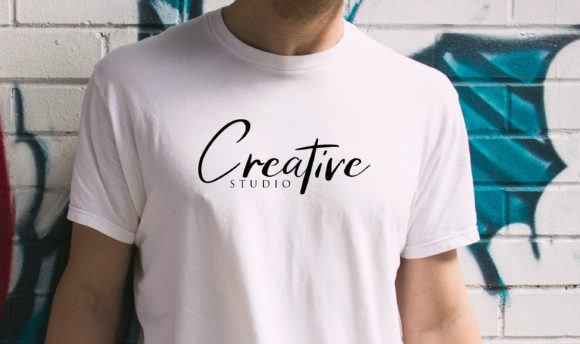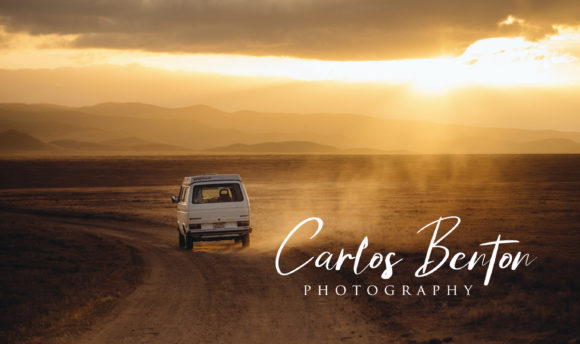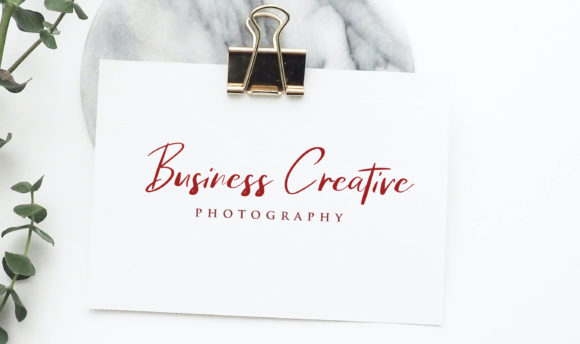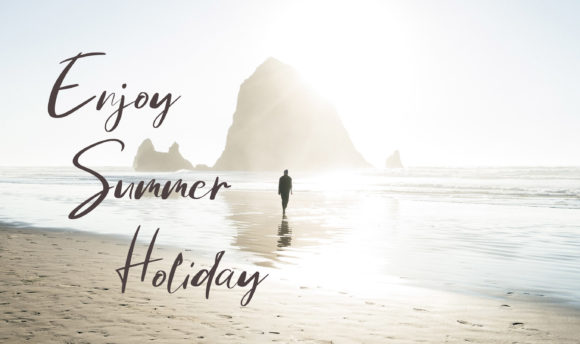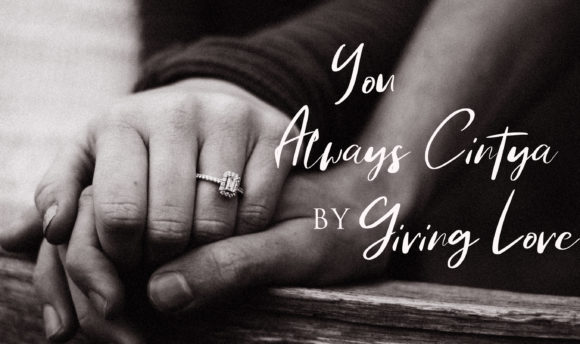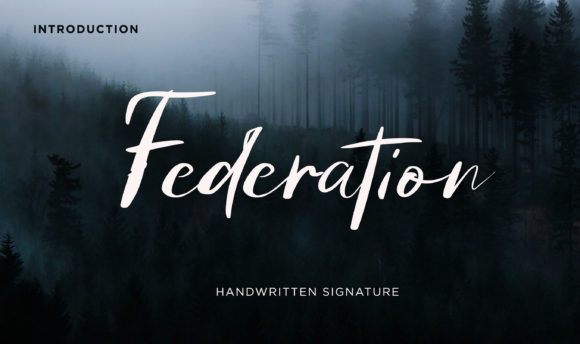
Federation Font: The Ultimate Choice for Designers and Crafters
In the world of typography, a font can make all the difference in the aesthetic and tone of a design. For designers and crafters looking for a relaxed yet stylish handwritten font, Federation Font is an excellent choice. This versatile font can be used for a wide range of purposes, from logos and wedding invitations to headings, t-shirts, and more.
What is Federation Font?
Federation Font is a beautifully crafted handwritten font that exudes a sense of relaxation and style. Its smooth, flowing lines and elegant curves make it perfect for designs that require a touch of sophistication and whimsy. Whether you’re a designer looking for a font to use in a client’s project or a crafter seeking a unique font for your handmade goods, Federation Font is an excellent option.
Uses of Federation Font
One of the best things about Federation Font is its versatility. It can be used for a wide range of purposes, including:
- Logos: Create a unique and memorable logo for your business or brand with Federation Font.
- Wedding Invitations: Add a touch of elegance and whimsy to your wedding invitations with this beautiful handwritten font.
- Headings: Use Federation Font to create eye-catching headings for your blog posts, articles, or website.
- T-shirts: Design custom t-shirts with Federation Font for a unique and stylish look.
- Letterhead: Create professional-looking letterhead with Federation Font for your business or personal correspondence.
- Signage: Use Federation Font for signage, such as store signs, directional signs, or informational signs.
- Labels: Design custom labels for your products or packages with Federation Font.
- News: Use Federation Font for newspaper or magazine headlines, or for creating engaging social media graphics.
- Posters: Create eye-catching posters with Federation Font for advertising, promotion, or informational purposes.
- Badges: Design custom badges with Federation Font for events, conferences, or trade shows.
Why Choose Federation Font?
So, why should you choose Federation Font for your design projects? Here are just a few reasons:
- Unique and Versatile: Federation Font is a one-of-a-kind font that can be used for a wide range of purposes.
- Easy to Read: The smooth, flowing lines of Federation Font make it easy to read, even at small sizes.
- High-Quality: Federation Font is a high-quality font that is designed to look great in any design.
- Customizable: Federation Font can be customized to fit your design needs, including adjusting the size, color, and style.
Tips for Using Federation Font
Here are a few tips for using Federation Font in your design projects:
- Pair with Other Fonts: Federation Font looks great when paired with other fonts, such as sans-serif fonts or serif fonts.
- Use for Headlines: Federation Font is perfect for headlines, as it adds a touch of elegance and whimsy to your design.
- Experiment with Colors: Try out different colors with Federation Font to see what works best for your design.
- Keep it Simple: Don’t overcomplicate your design – keep it simple and let Federation Font shine.
In conclusion, Federation Font is a versatile and stylish handwritten font that is perfect for designers and crafters looking for a unique and elegant font for their design projects. With its smooth, flowing lines and elegant curves, Federation Font is sure to add a touch of sophistication and whimsy to any design. Whether you’re creating logos, wedding invitations, headings, or more, Federation Font is an excellent choice.